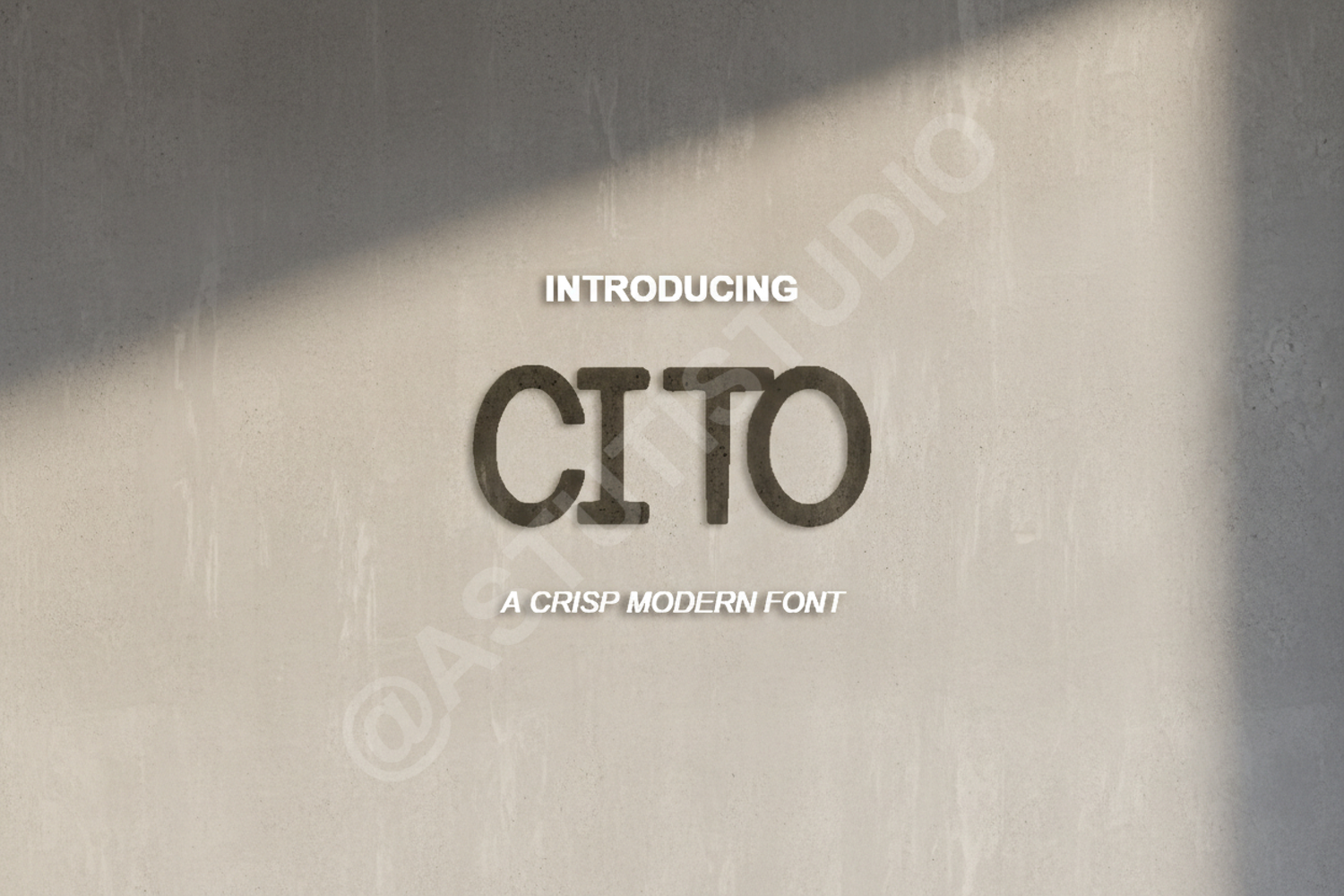
Cito - Modern Minimalist Sans Serif
Cito
Elevate your creative projects with Cito, a premium sans serif font that embodies modern sophistication and clarity. Meticulously crafted with balanced proportions and clean geometric lines, Cito offers a timeless aesthetic that ensures your message is delivered with professional precision. Whether you are working on a high-end corporate identity or a sleek digital interface, Cito provides the versatility and readability required for top-tier design.
- Branding and Identity: Perfect for creating memorable logos and cohesive brand systems.
- Editorial Design: Ideal for magazine layouts, brochures, and high-quality print media.
- Digital Presence: Optimized for web interfaces, app design, and social media content.
- Minimalist Packaging: Enhances product packaging with a clean and luxurious feel.
- Professional Presentations: Adds a touch of modern elegance to corporate decks and reports.